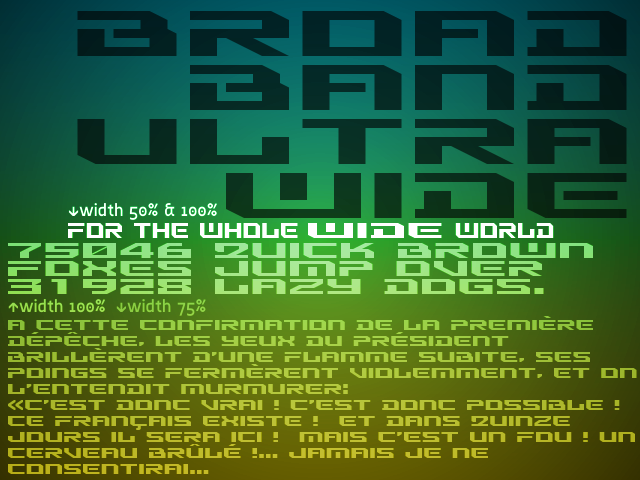
What would futuristic type design be without ridiculously wide letters?
Also looks great at narrower widths down to 50%.
French sample text from De la Terre à la Lune by Jules Verne. Public domain.
Nice futuristic look! The Q is not very recognizable though.
@464661 I went for a calligraphic/cursive letter form. According to the Wikpedia article on the letter Q, it's seen in 304 of 5528 serif fonts and 428 of 8285 sans-serif fonts on Identifont.
I like B and the R very much.